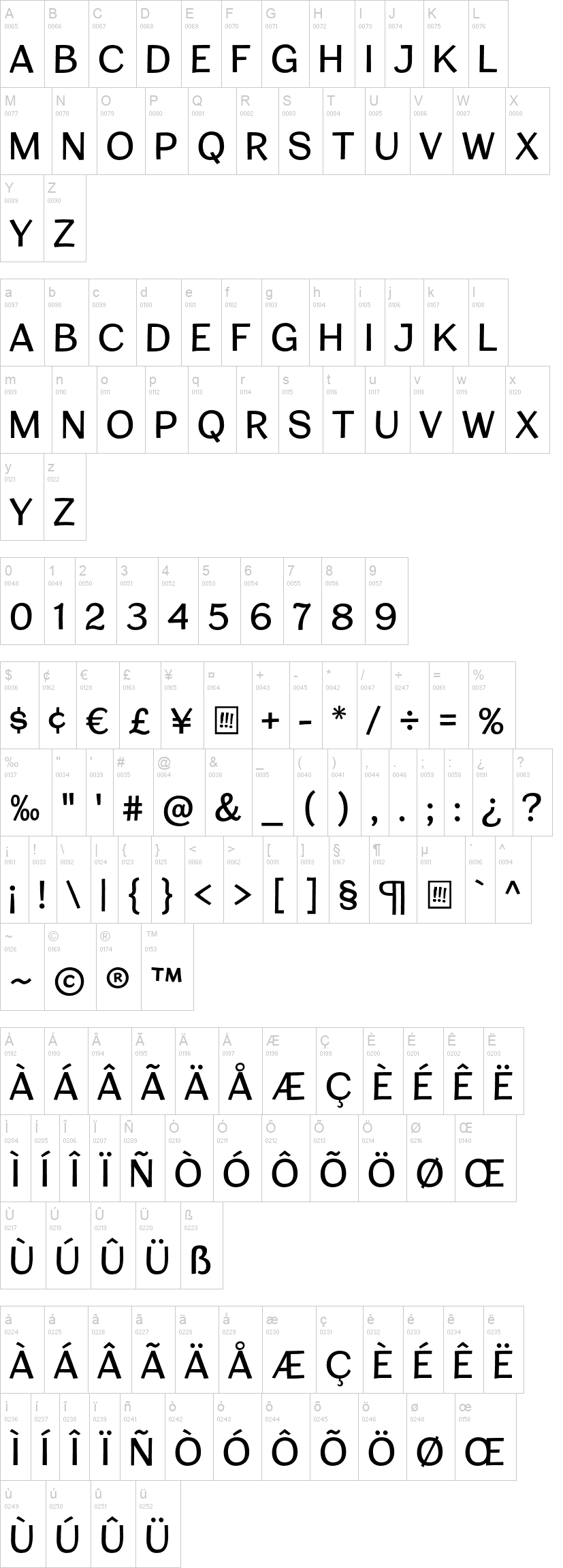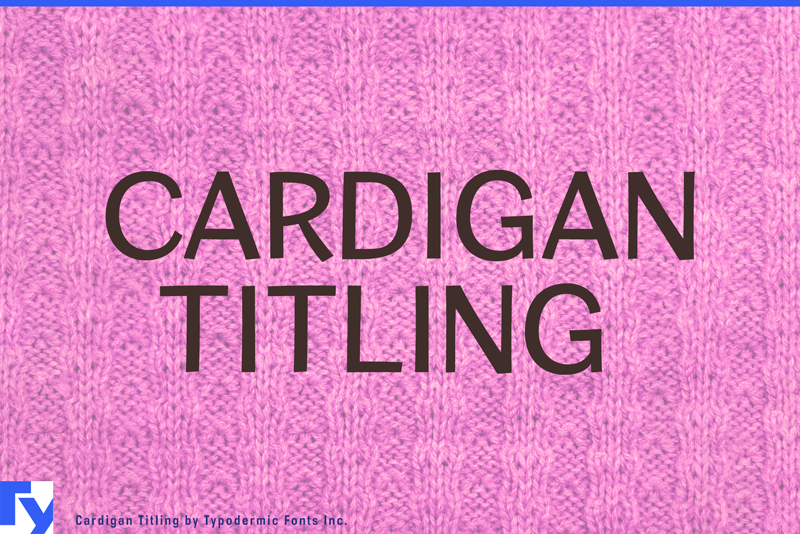
cardigan titling sb.otfcardigan titling bd.otfcardigan titling it.otfcardigan titling sb it.otfcardigan titling bd it.otfNote of the authorCardigan is a casual sans-serif typeface. While the line treatment is casual, the letterforms are straightforward and traditional, making it one of the few casual types that performs well in large amounts of text. The italics are more naturalistic than the uprights, but still practical and not ostentatious. For a version of Cardigan with lowercase, check out the regular Cardigan family. Most Latin-based European writing systems are supported, including the following languages. Afaan Oromo, Afar, Afrikaans, Albanian, Alsatian, Aromanian, Aymara, Bashkir (Latin), Basque, Belarusian (Latin), Bemba, Bikol, Bosnian, Breton, Cape Verdean, Creole, Catalan, Cebuano, Chamorro, Chavacano, Chichewa, Crimean Tatar (Latin), Croatian, Czech, Danish, Dawan, Dholuo, Dutch, English, Estonian, Faroese, Fijian, Filipino, Finnish, French, Frisian, Friulian, Gagauz (Latin), Galician, Ganda, Genoese, German, Greenlandic, Guadeloupean Creole, Haitian Creole, Hawaiian, Hiligaynon, Hungarian, Icelandic, Ilocano, Indonesian, Irish, Italian, Jamaican, Kaqchikel, Karakalpak (Latin), Kashubian, Kikongo, Kinyarwanda, Kirundi, Kurdish (Latin), Latvian, Lithuanian, Lombard, Low Saxon, Luxembourgish, Maasai, Makhuwa, Malay, Maltese, Māori, Moldovan, Montenegrin, Ndebele, Neapolitan, Norwegian, Novial, Occitan, Ossetian (Latin), Papiamento, Piedmontese, Polish, Portuguese, Quechua, Rarotongan, Romanian, Romansh, Sami, Sango, Saramaccan, Sardinian, Scottish Gaelic, Serbian (Latin), Shona, Sicilian, Silesian, Slovak, Slovenian, Somali, Sorbian, Sotho, Spanish, Swahili, Swazi, Swedish, Tagalog, Tahitian, Tetum, Tongan, Tshiluba, Tsonga, Tswana, Tumbuka, Turkish, Turkmen (Latin), Tuvaluan, Uzbek (Latin), Venetian, Vepsian, Võro, Walloon, Waray-Waray, Wayuu, Welsh, Wolof, Xhosa, Yapese, Zapotec Zulu and Zuni.